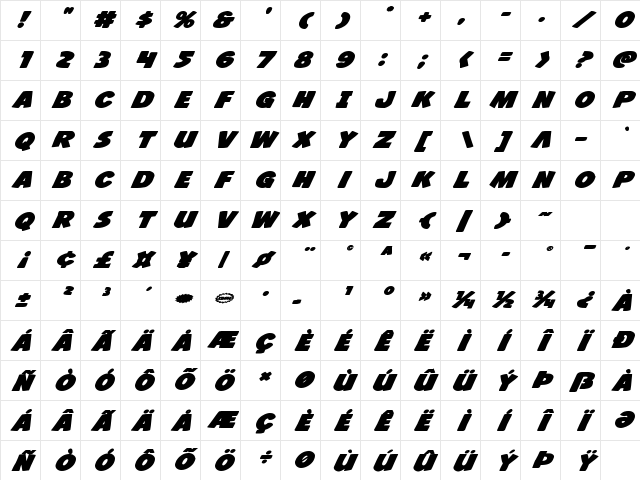
Jack's Candlestick Bold Expanded Bold Expanded
Design Context for Jack's Candlestick Bold Expanded
Jack's Candlestick Bold Expanded is a composed and adaptable typeface that performs quietly and consistently across a wide range of design contexts. Its bold stroke weight gives it real presence on the page.